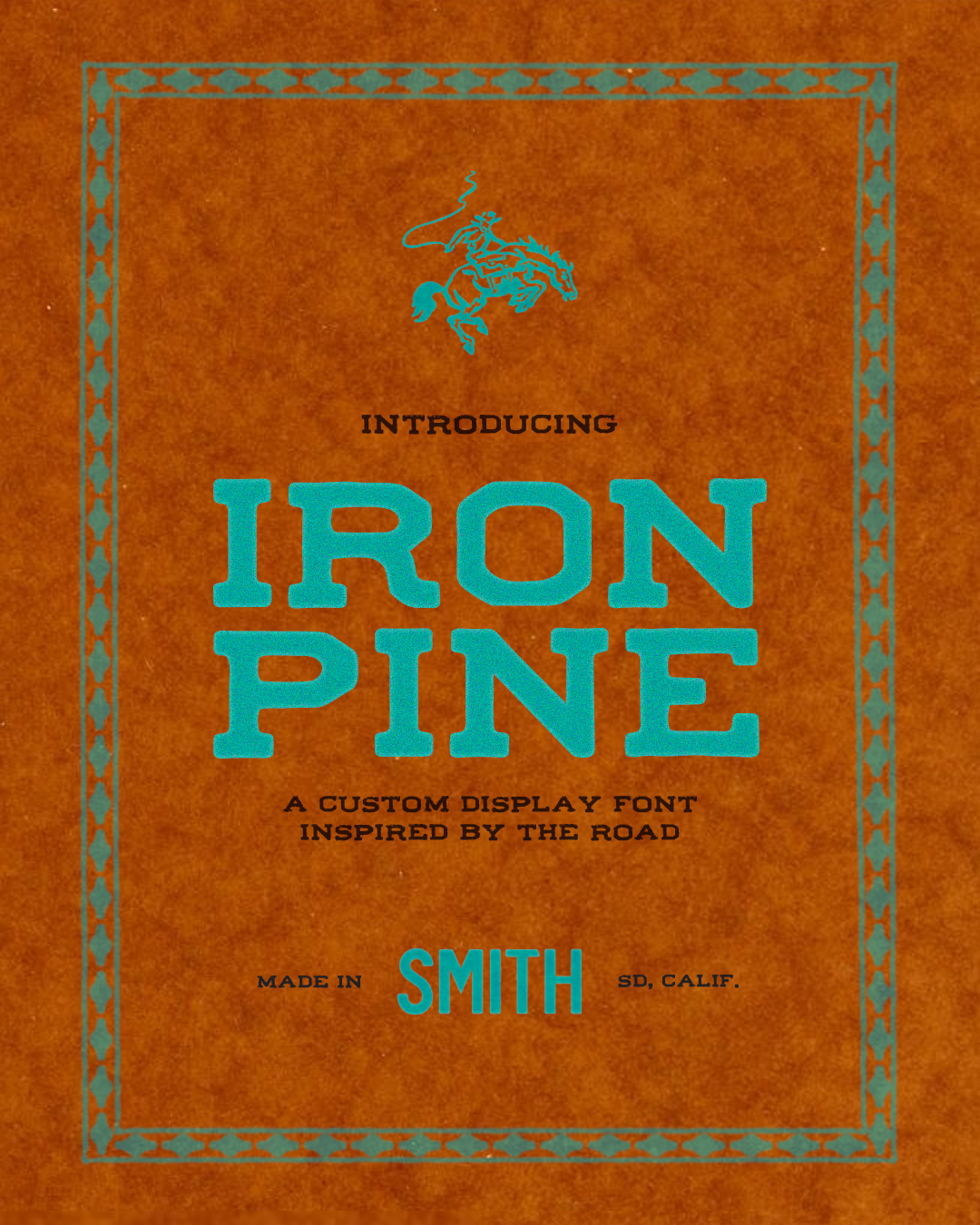
Iron Pine is a hand-drawn display font inspired by a hand-painted sign I found in Lone Pine, California. The original lettering had the irregular shapes, uneven proportions, and subtle imperfections you only get when something is painted by hand.
I used those original letterforms as the foundation for the typeface, then built out the remaining characters while staying true to the rules and personality of the original sign.
The download includes two styles: Iron Pine Clean, which preserves the original shapes with smoother edges, and Iron Pine Distressed, which brings back the worn texture and imperfections of the original painted lettering.
Use it for branding, packaging, posters, apparel, signage, merchandise, or anywhere you want typography with an old roadside, Western, hand-painted feel.